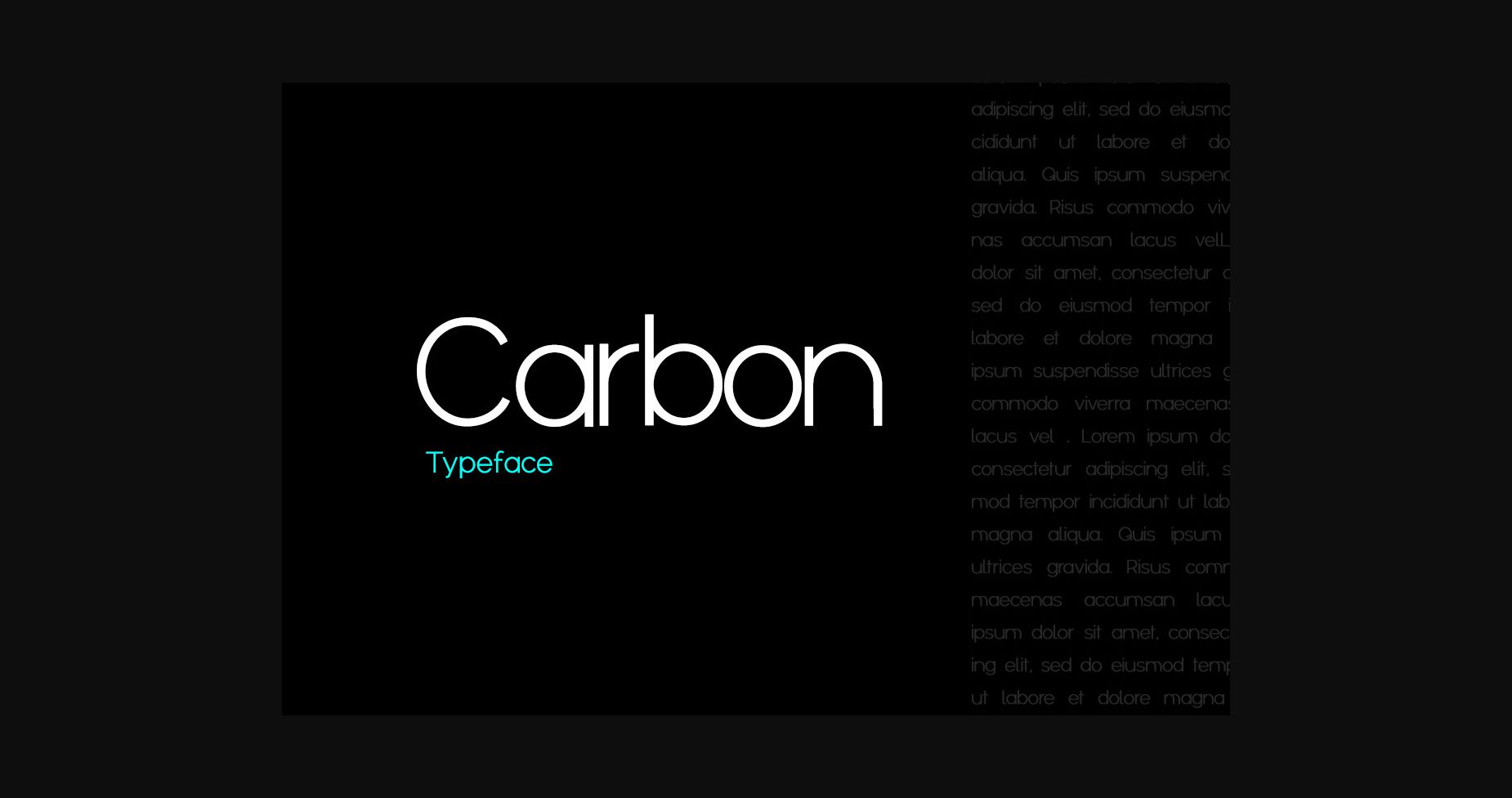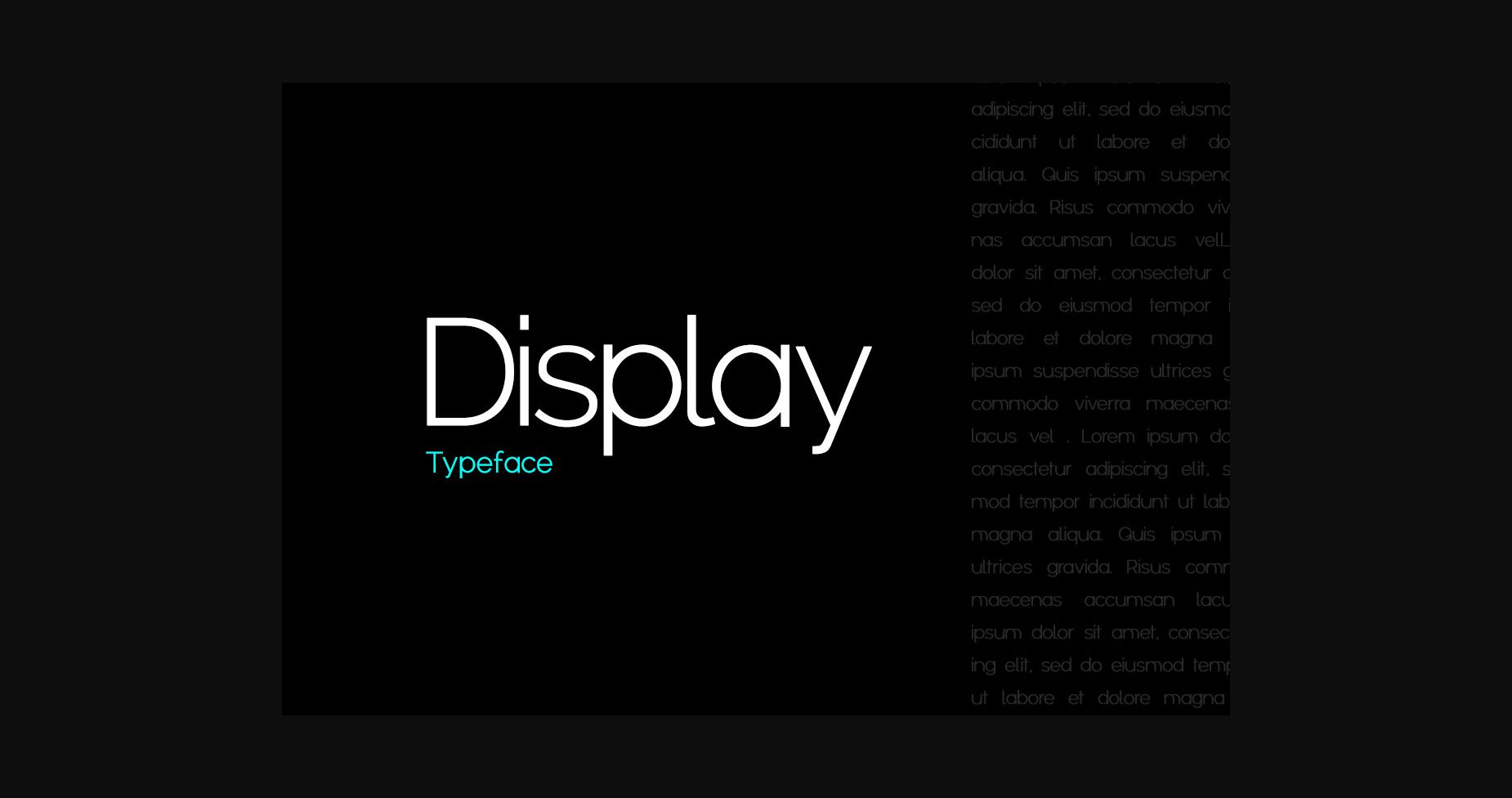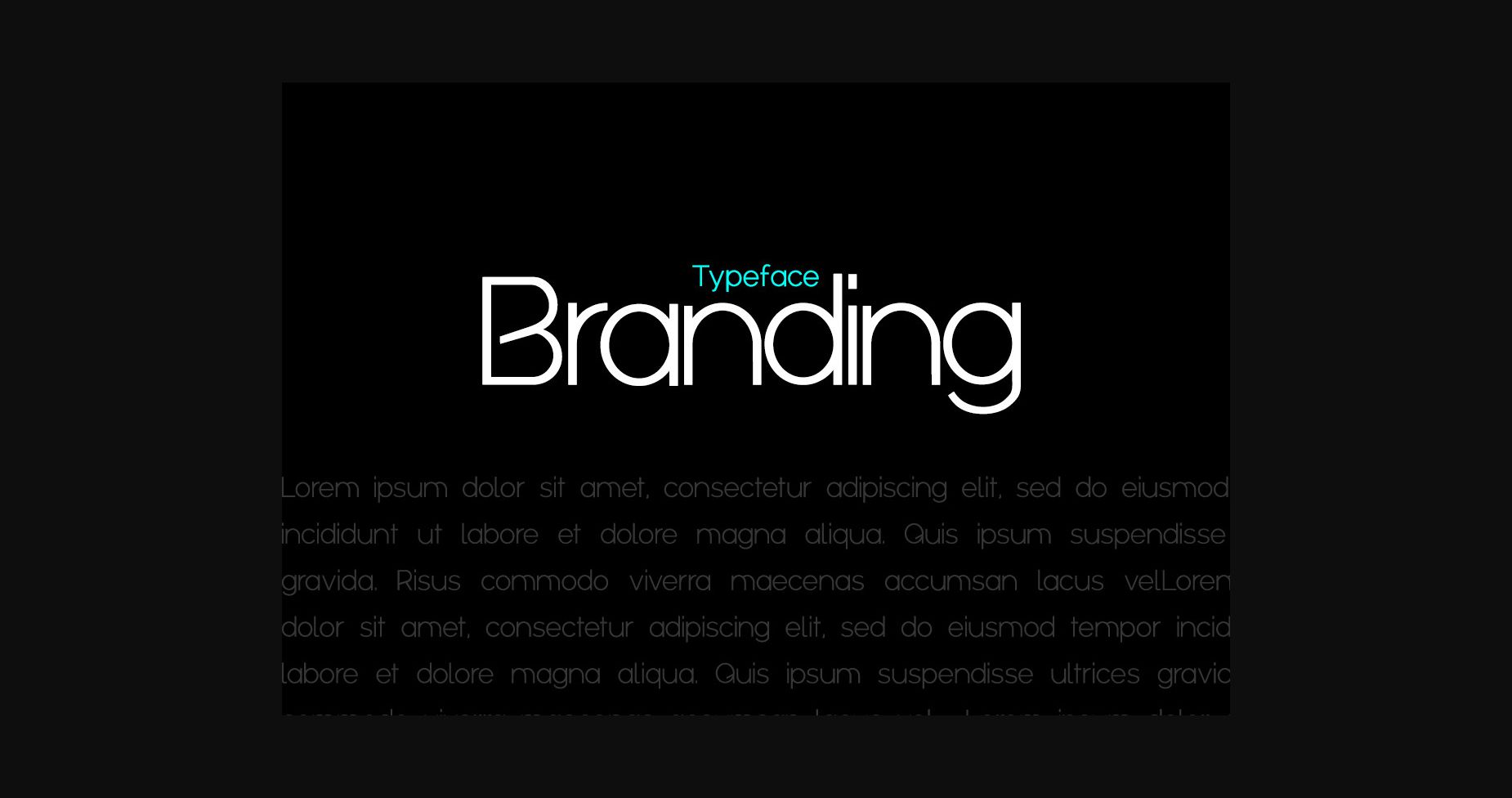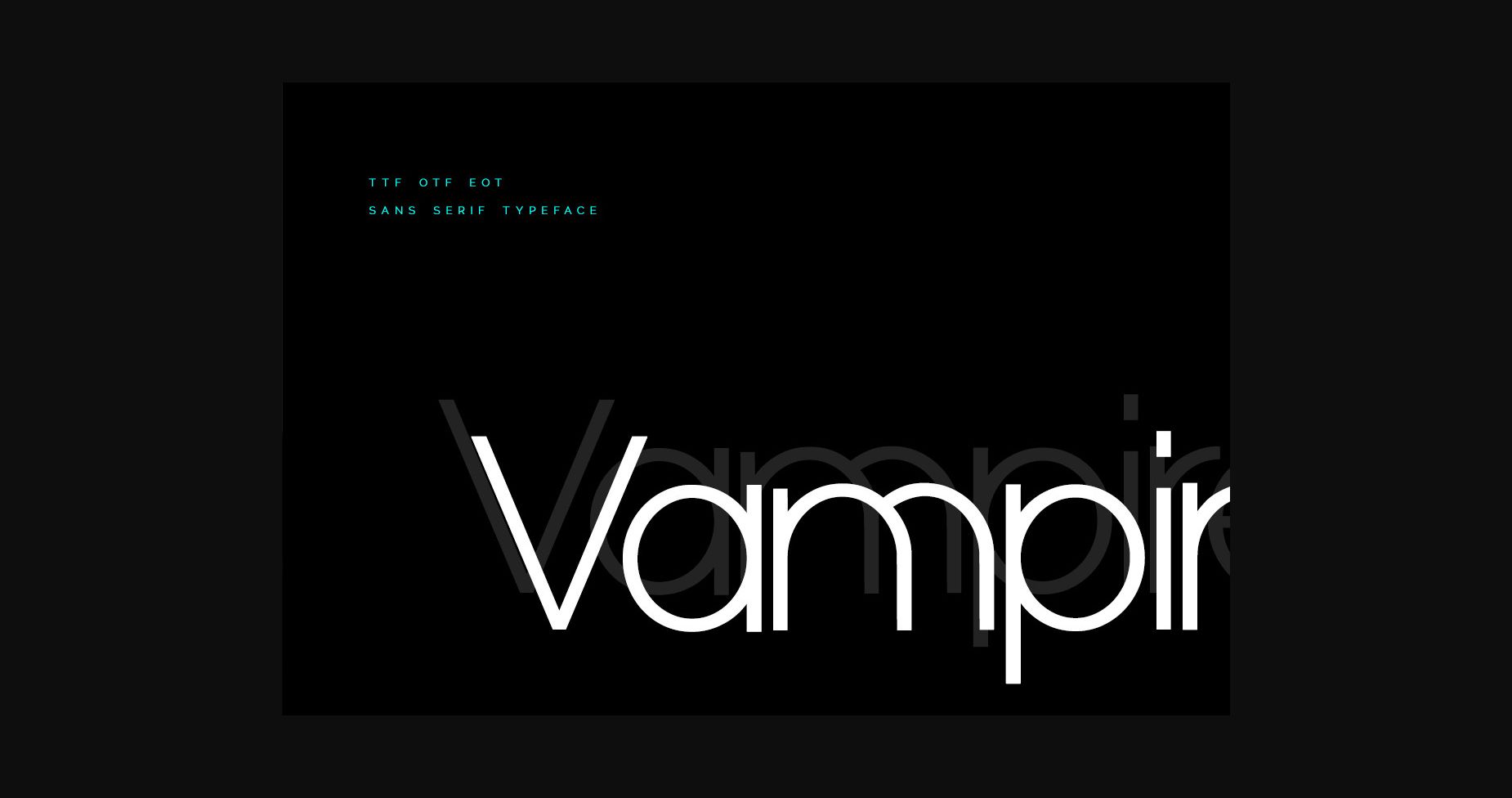
HomeSans Serif FontsCarbon Font Sans Serif Fonts Carbon Font FacebookXPinterestWhatsApp 1 of 6 ... Carbon Font Poster 2... Carbon Font Poster 3... Carbon Font Poster 4... Carbon Font Poster 5... Carbon Font Poster 6... About Carbon Font Carbon is a simple and modern sans serif font. Carbon will look outstanding in any context, whether it’s being used on busy backgrounds or as a standalone headline! DOWNLOAD NOW People also explored Shine Bright Font Garllinga Font Bohemia Font Real Love Font Attribute Signature Font Flower Lover Font Sistermoon Script Font Leoa Family Font Fishery Font 332 0 TagsCarbonCarbon Font Previous articleBacardy FontNext articleDevina Font LEAVE A REPLY Cancel reply Comment: Please enter your comment! Name:* Please enter your name here Email:* You have entered an incorrect email address! Please enter your email address here Website: Save my name, email, and website in this browser for the next time I comment. Personal Use Free Milda Personal Use Free Read more about this font Daisy Script Personal Use Free Read more about this font Just Love Personal Use Free Read more about this font City Tour Personal Use Free Read more about this font BLOG How to Cut Any Font on Cricut: Convert a Font to SVG (Free) Turn any font into a clean SVG so it cuts crisp on Cricut - a quick 3-step workflow using a free font-to-SVG tool. Top 7 Google Fonts Alternatives for Faster and Privacy-Friendly Web Design (2025) Transform Your Website: Elevate Your Typography with 7 Best Web Font Generators Exploring Font Trends